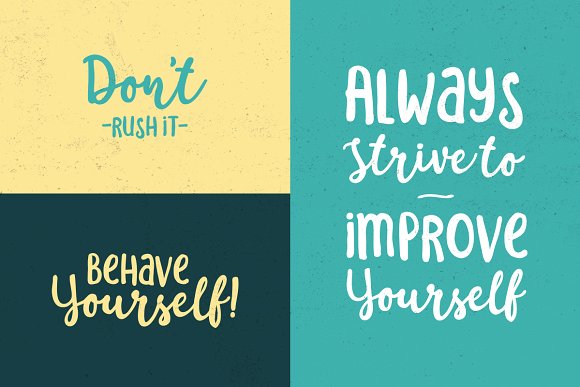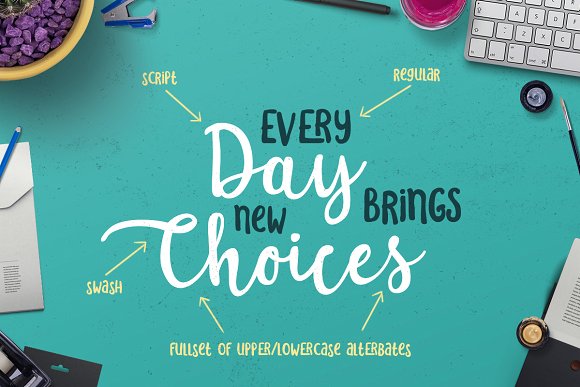
Sakra Font
db-ku.com - Script & Handwritten -- The Sakra Font duo consists out of a regular and a script font that are a perfect match to combine in your project.